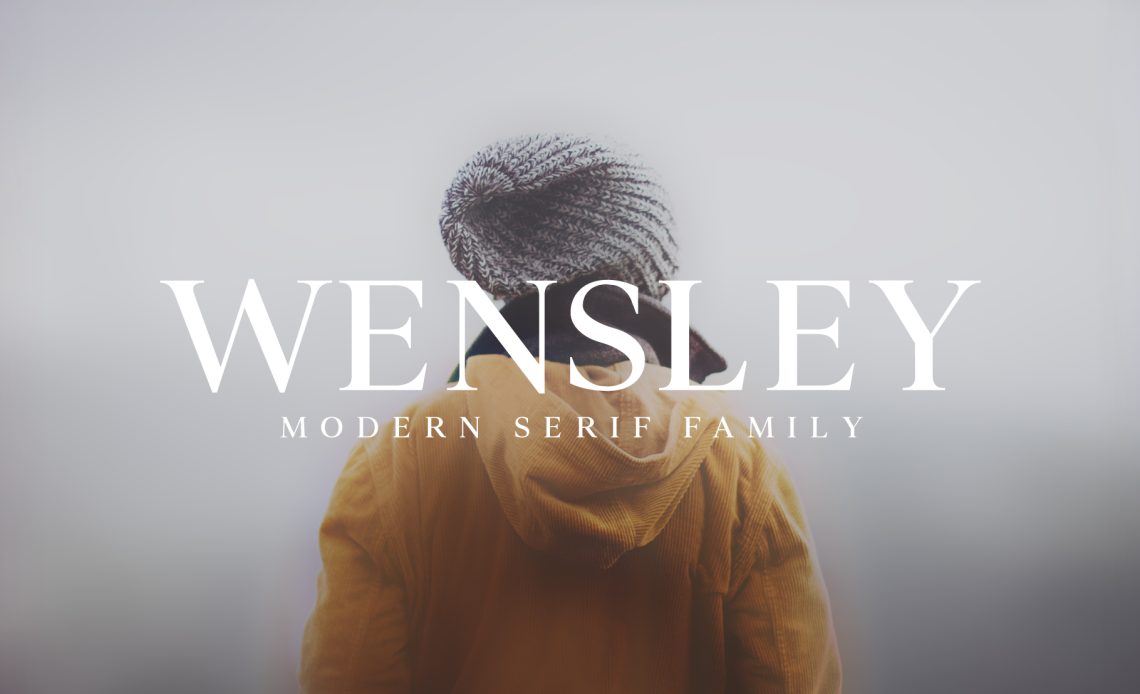
Introducing Wensley Font, the perfect choice for anyone who wants to add a touch of sophistication and elegance to their design projects. Created by Creative Tacos, this modern serif font is packed with tons of glyphs, making it incredibly versatile and suitable for a wide range of uses.
One of the standout features of Wensley is its high-class appeal. Whether you're designing a wedding invitation, a luxury brand logo, or an elegant website, this font will instantly elevate your project and give it a touch of refinement that is hard to achieve with other fonts.
But Wensley is more than just a pretty font - it's also incredibly functional. Its clean lines and classic serif style make it easy to read, even at small sizes, while its versatility means that it pairs beautifully with other fonts, particularly script fonts and calligraphy styles.
Whether you're a professional designer or just starting out, Wensley is a font that you simply can't afford to overlook. With its combination of style, versatility, and functionality, it's the perfect choice for anyone looking to create designs that are both beautiful and effective.